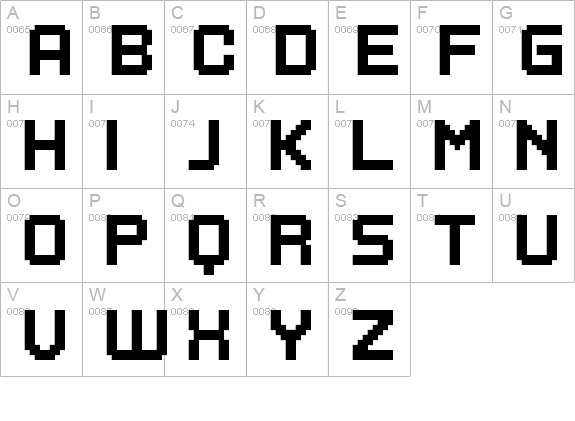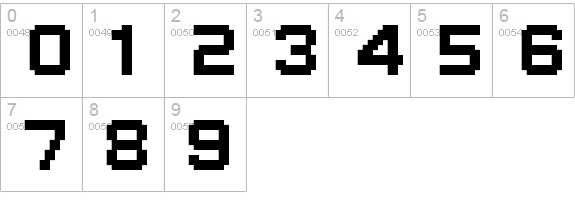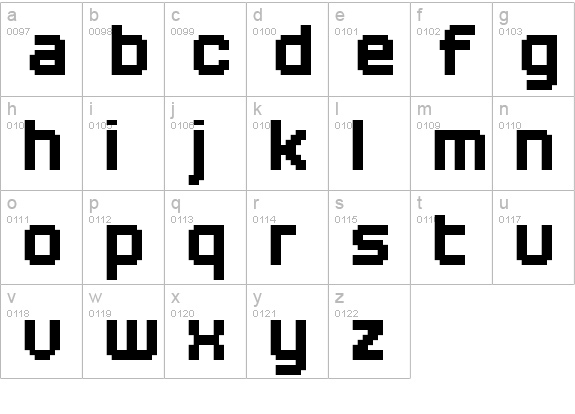
FFF Calypso Extended is a distinctive, extended-width variant in the FFF typeface family \xE2\x80\x94 well suited to design and typography projects.
The FFF Calypso Extended font is a modern and stylish typeface that exudes sophistication and elegance. With its sleek and clean lines, this font is perfect for a wide range of design projects, from branding to editorial design. The extended version of FFF Calypso provides a unique twist to the classic font, making it stand out and catch the eye. What makes FFF Calypso Extended font even more appealing is that it is completely free to download. You can easily access this versatile typeface at FontsMarket.com, where you can take advantage of its sleek design and professional quality without any cost. Don't miss out on the opportunity to enhance your projects with FFF Calypso Extended font today!